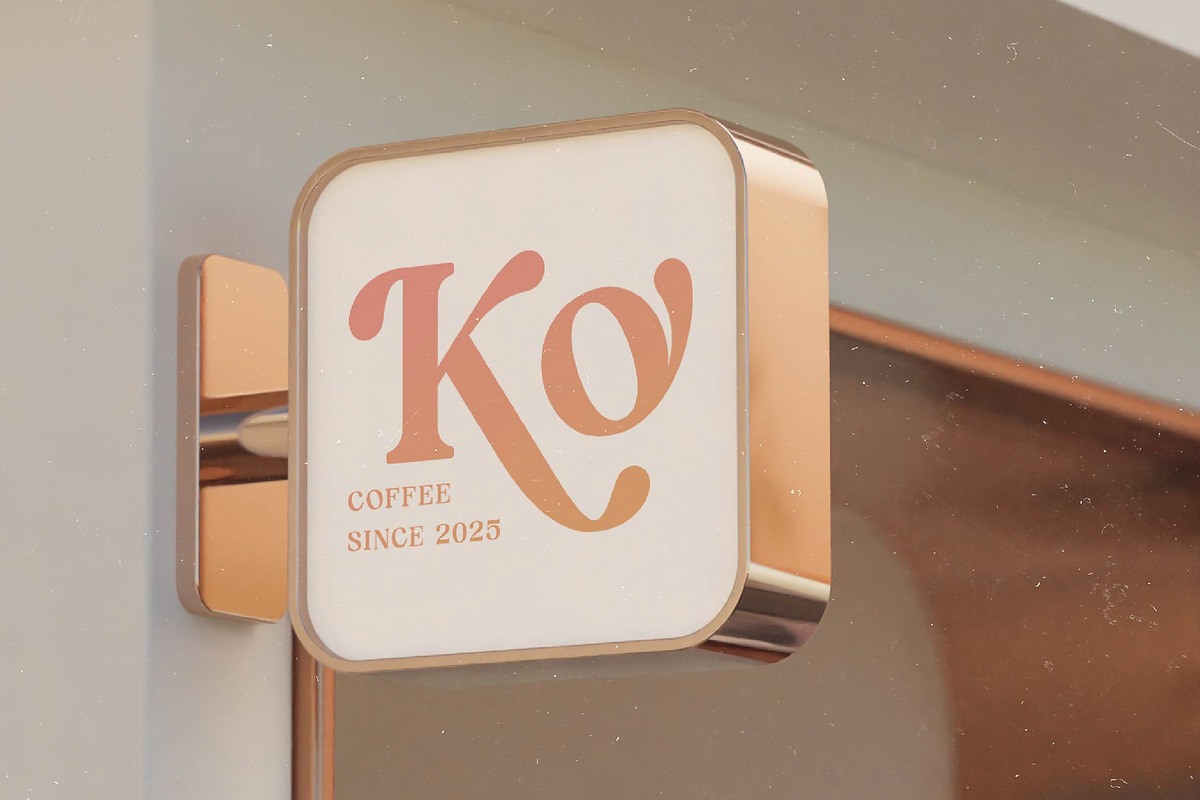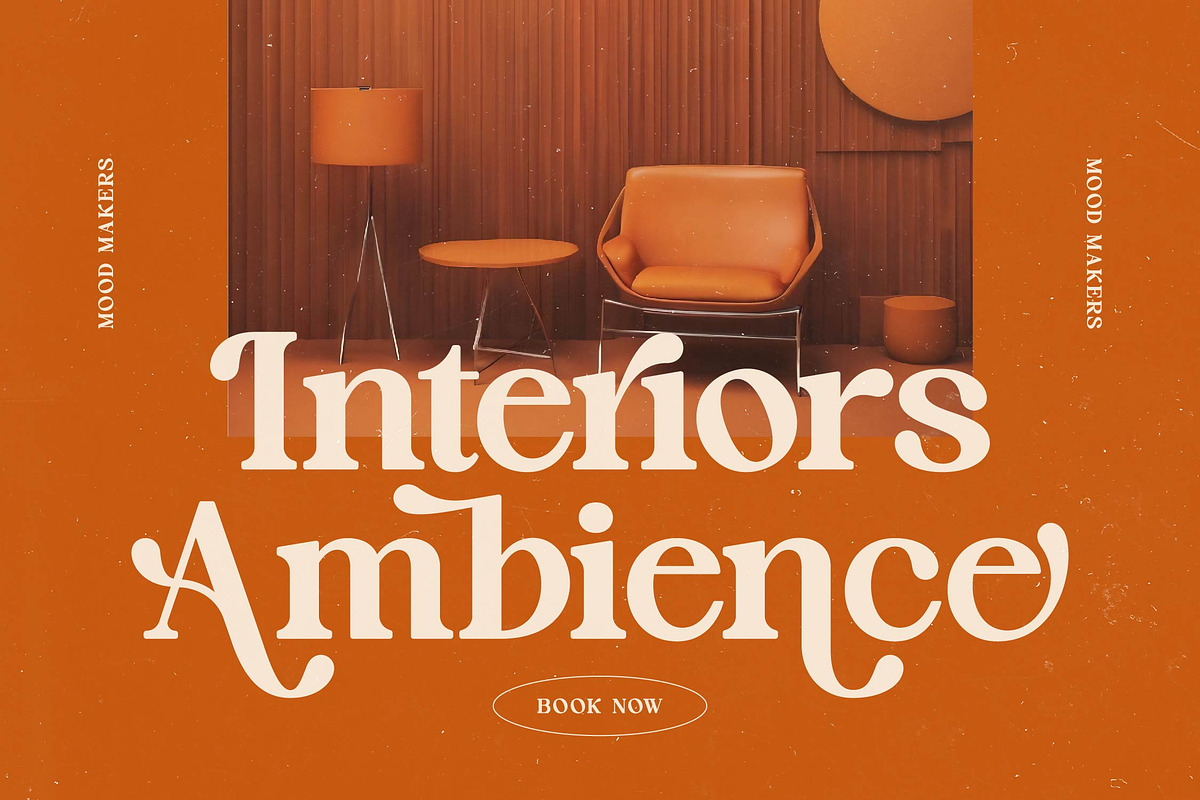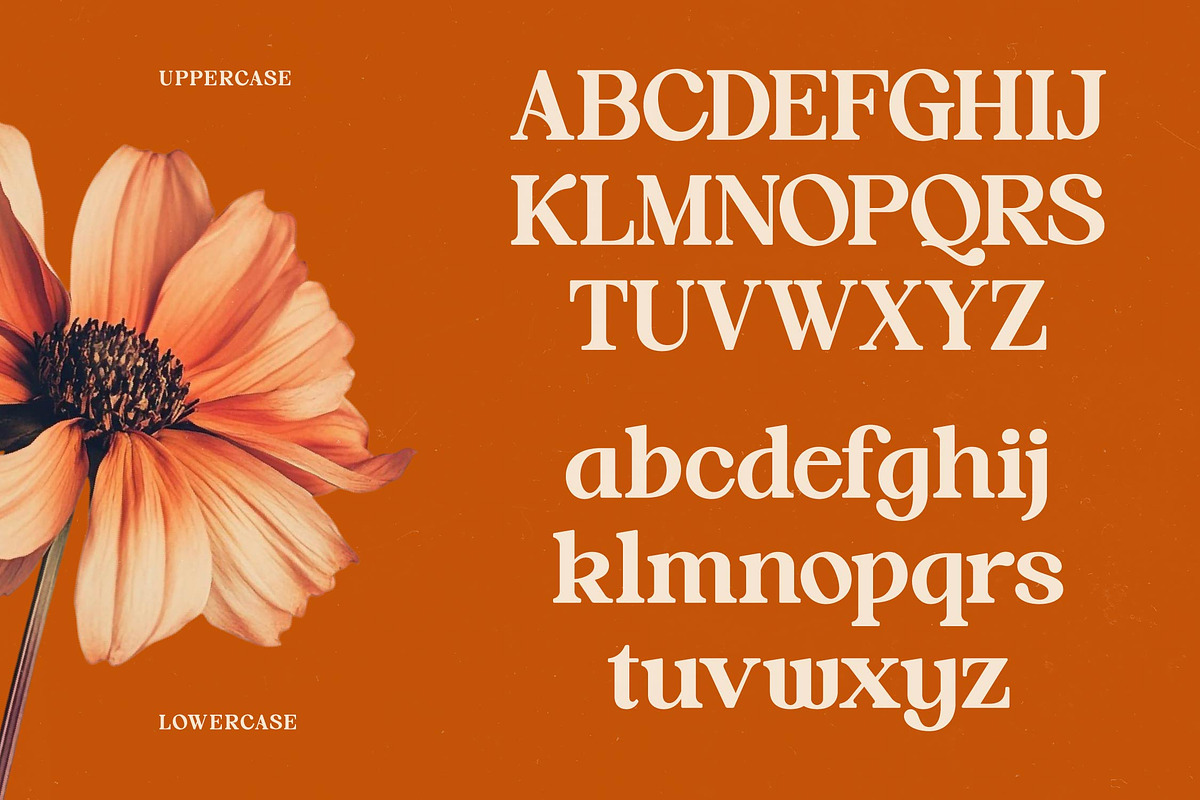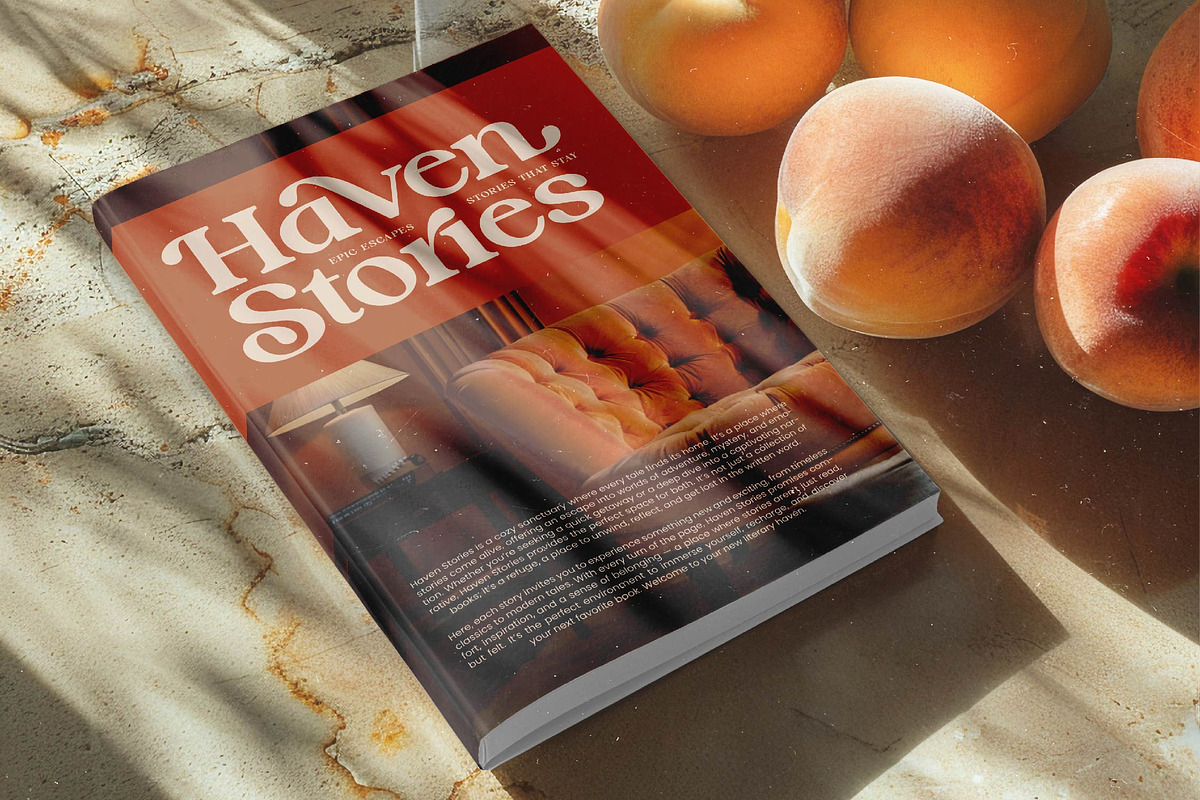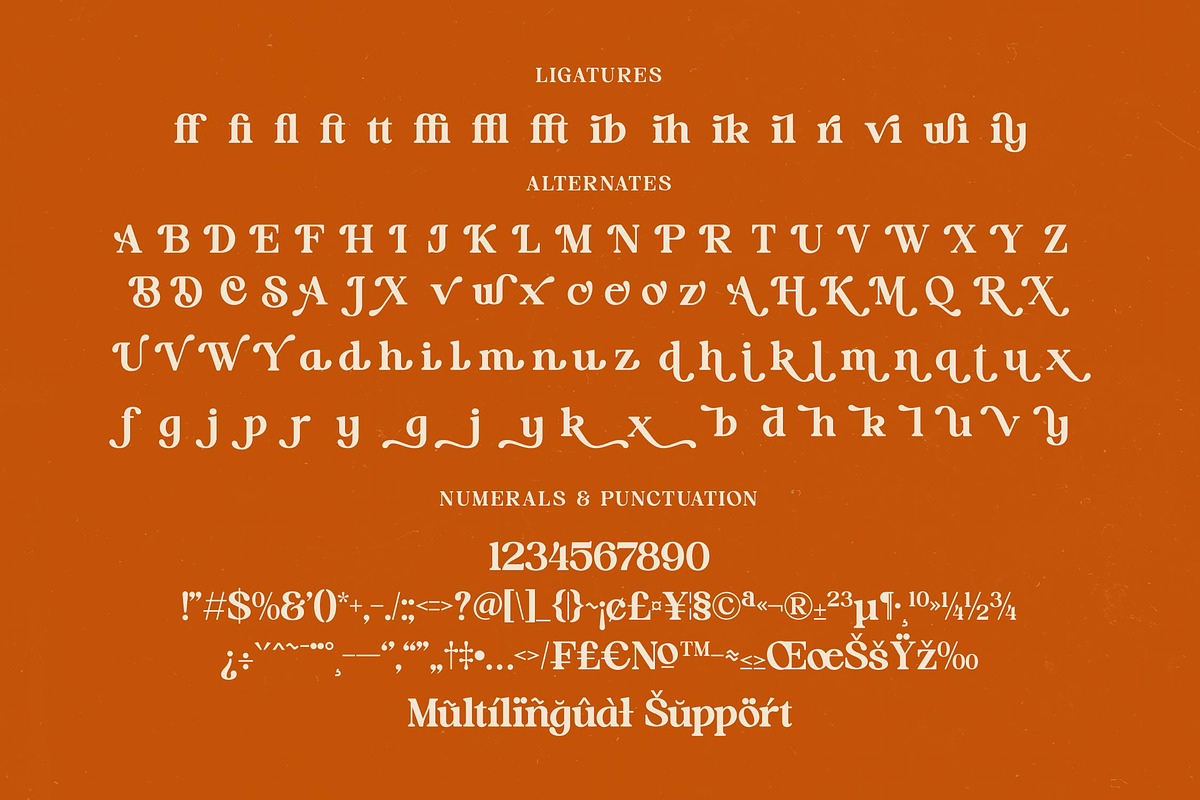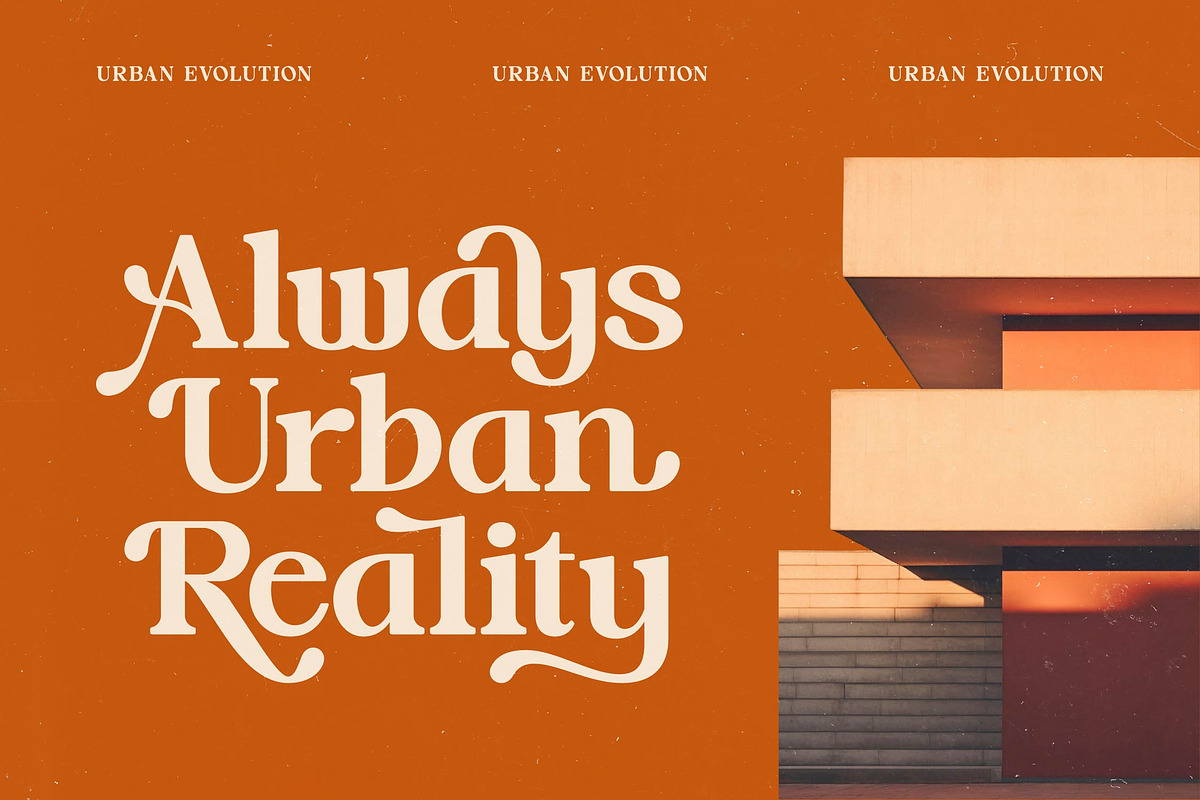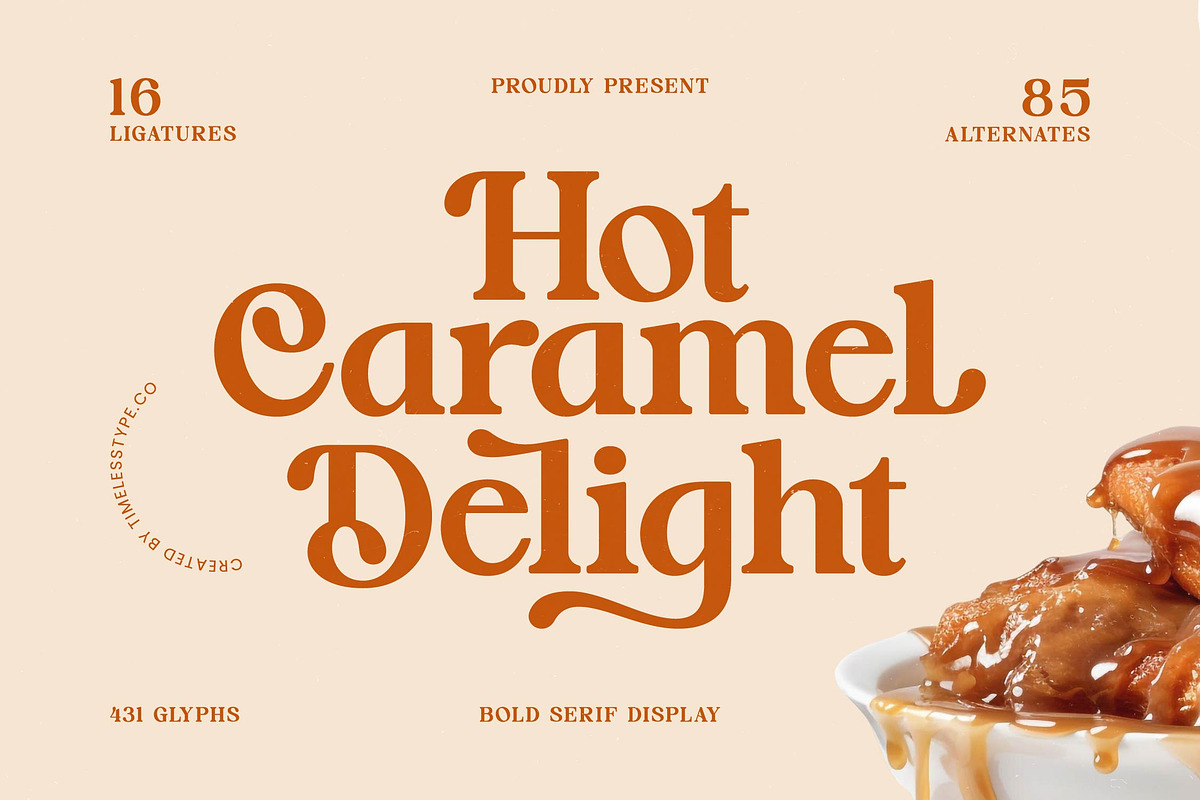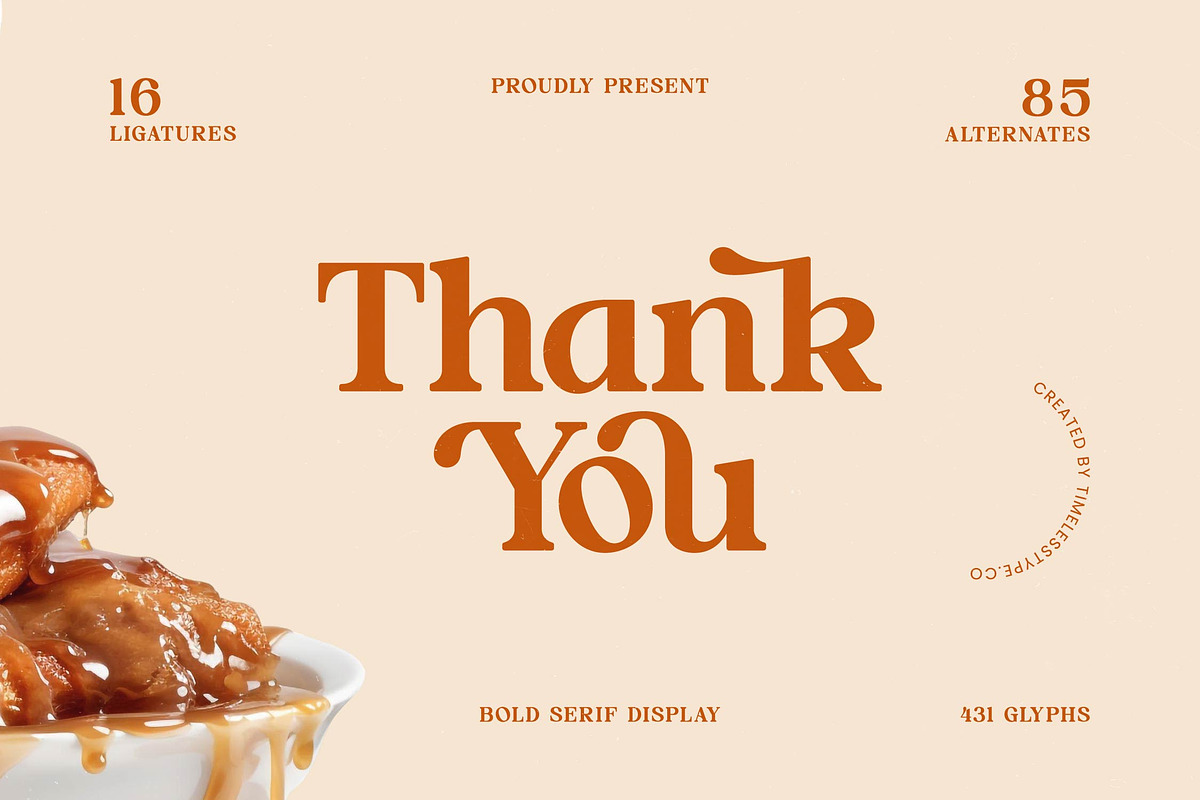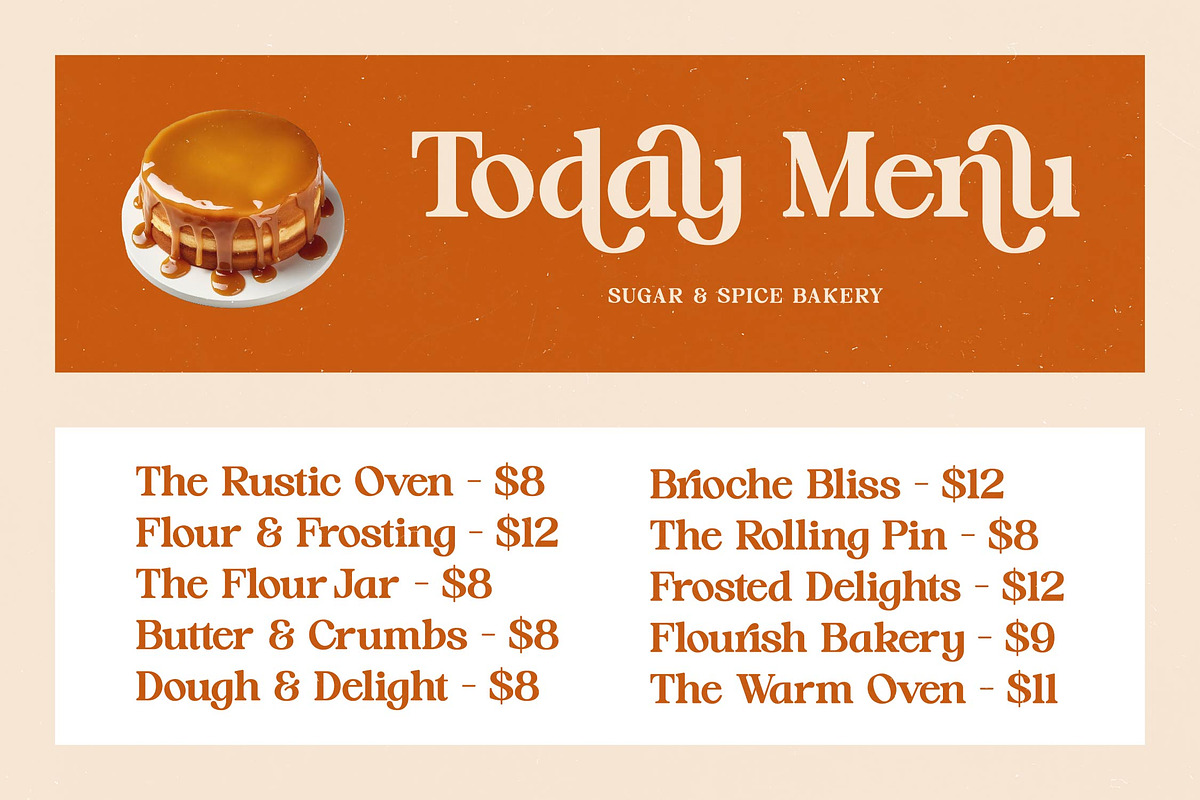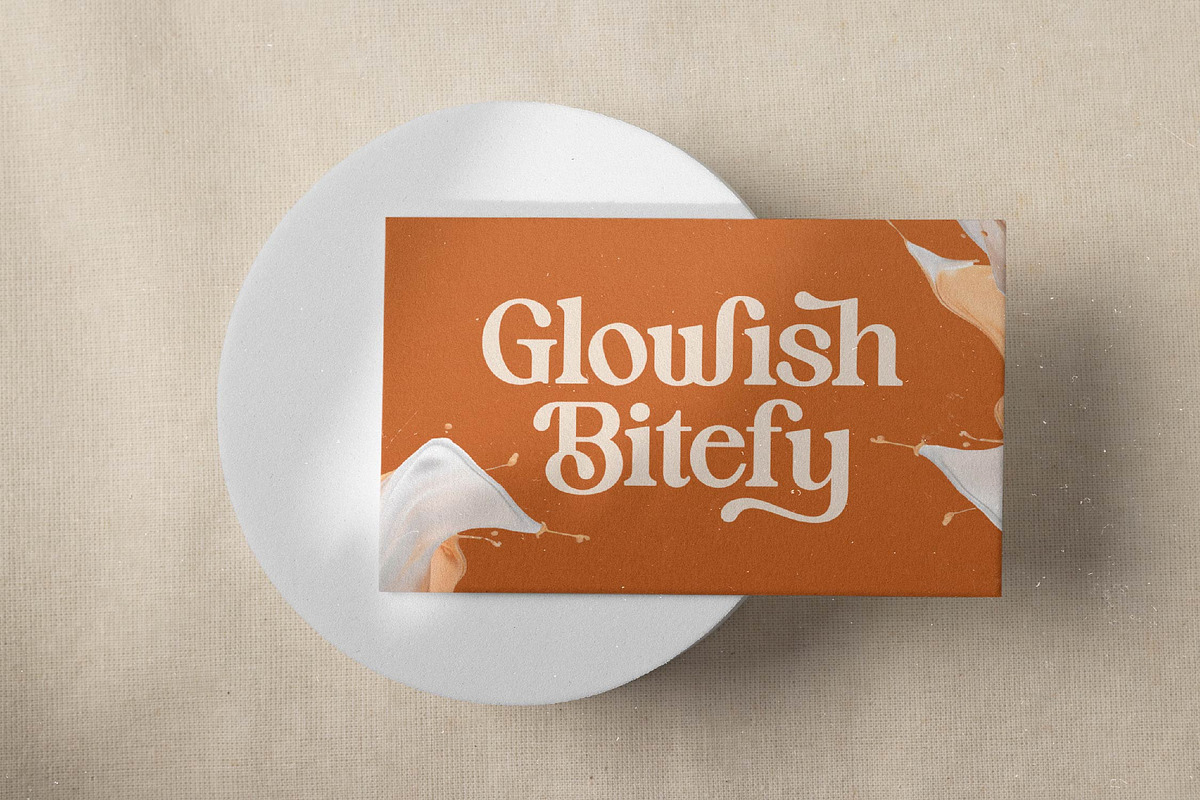
Hot Caramel Bold Serif Display
Indulge in the rich, velvety aesthetic of Hot Caramel, a typeface designed to wrap your designs in warmth and sophisticated charm. It is the ultimate choice for creators seeking a balance between nostalgic flair and contemporary elegance.
Inspired by the smooth flow of molten sugar and the bold curves of 1970s editorial design, this font captures a sense of cozy luxury. Its forms evoke the atmosphere of high-end boutique cafes and the timeless appeal of vintage lifestyle magazines.
As a modern serif display, this typeface delivers a powerful branding impact through its high-contrast serif strokes and refined finish. It functions as a premium luxury typography solution, providing an editorial font feel that instantly elevates any project to professional heights.
Riding the wave of the current modern serif trend, this font stands out by offering character-driven typography that feels both unique and familiar. It meets the demand for editorial display fonts that prioritize personality without sacrificing readability or professional polish.
This versatile face is perfectly suited for high-impact logo design and cohesive corporate branding suites. Its elegant silhouettes make it a dream for luxury packaging, romantic wedding stationery, high-end fashion lookbooks, and sophisticated editorial layouts.
This font is a powerhouse of versatility, featuring a wide array of ligatures and alternates that allow for custom-tailored text. With beautiful swashes and comprehensive multilingual support including international characters, it is ready for global design challenges.
- Ligature 16 Alternate 85